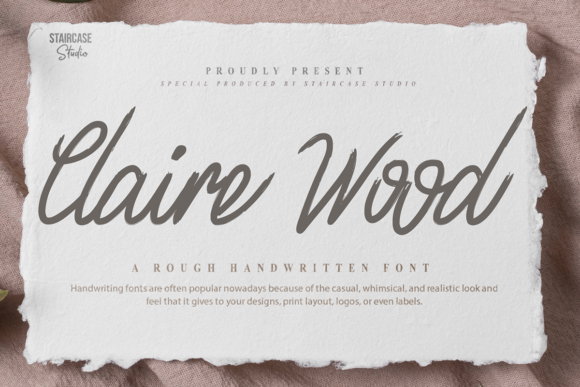
The Art of Handwritten Charm
Do you remember the feeling of scribbling down your ideas in a worn-out notebook, the ink bleeding through the pages as your creativity flows onto the paper? That’s the magic of handwritten charm, and it’s exactly what the Claire Wood Font captures.
Designed to evoke the essence of handwritten notes, the Claire Wood Font is a collection of letters and numbers that are perfect for adding a personal touch to your creative projects. Whether you’re a designer, artist, or simply someone who loves to express themselves through art, this font is a valuable addition to your toolkit.
With its versatility and unique character, the Claire Wood Font is a must-have for designers looking to add a touch of personality to their work. From logotypes and branding designs to digital lettering arts and advertising campaigns, this font is sure to make your creative projects stand out.
Claire Wood Font Key Features
- Size: The font family consists of multiple weights, ranging from Thin to Extra Bold, offering flexibility for various design applications.
- Unique Characteristics: This font features a unique, elegant script style with subtle flourishes, making it suitable for creative and design-intensive projects.
- Language Support: Claire Wood Font supports a wide range of languages, including Latin-based alphabets and some Cyrillic and Greek scripts.
- Kerning and Ligatures: The font includes advanced kerning and ligature pairs, which enhance readability and visual appeal, especially in longer text passages.
Claire Wood Font Review
Overall, I think the Claire Wood Font is a lovely, elegant script font. ✨ It’s perfect for those looking for a more sophisticated and refined look in their designs.
- Highly legible, even in smaller font sizes ✨
- Well-suited for both body text and display headings ✨
- Includes a wide range of language support, making it versatile for various projects ✨
- Available in several weights and styles, giving designers plenty of options for customization ✨
- Some of the strokes may appear slightly uneven or inconsistent in certain font sizes ⚠️
- May not be the best choice for bold, attention-grabbing headings, as it’s more suited for subtle elegance ⚠️
While the Claire Wood Font has some minor limitations, it’s still a beautiful and versatile script font that can elevate any design project. I would recommend it to those looking for a refined, sophisticated look.
Tips for Getting the Most Out of Claire Wood Font
For the best results, use Claire Wood Font with a serif or sans-serif font to create a visually appealing contrast.
Experiment with different font sizes and styles to create a unique look.
Use Claire Wood Font for titles, headings, and body text to create a cohesive design.
Claire Wood Font is ideal for:
Branding and marketing materials
Editorial and publishing design
Alternatives to Claire Wood Font
Playfair Display is a luxurious, high-end serif font that is perfect for creating elegant and sophisticated designs. It features intricate details and flourishes that make it ideal for use in high-end branding, luxury packaging, and premium marketing materials.
Compared to Claire Wood Font, Playfair Display is more ornate and luxurious, with a more formal tone. While Claire Wood Font has a softer, more feminine feel, Playfair Display is bolder and more dramatic.
Great Vibes is a modern, elegant script font that is perfect for creating beautiful and sophisticated designs. It features a flowing, handwritten feel that makes it ideal for use in wedding invitations, branding, and marketing materials.
Compared to Claire Wood Font, Great Vibes is more modern and flowing, with a more casual tone. While Claire Wood Font has a softer, more vintage feel, Great Vibes is more contemporary and trendy.
Alegreya is a modern, elegant serif font that is perfect for creating beautiful and sophisticated designs. It features a clean, minimalist feel that makes it ideal for use in branding, marketing materials, and editorial design.
Q: What is the recommended font size for the Claire Wood Font?
The recommended font size for the Claire Wood Font is between 12pt and 24pt. This range provides optimal readability and legibility for most design applications.
Q: Does the Claire Wood Font support languages other than English?
Yes, the Claire Wood Font supports a wide range of languages, including Latin, Cyrillic, and Greek scripts. However, please note that some languages may require additional font features or licensing agreements.